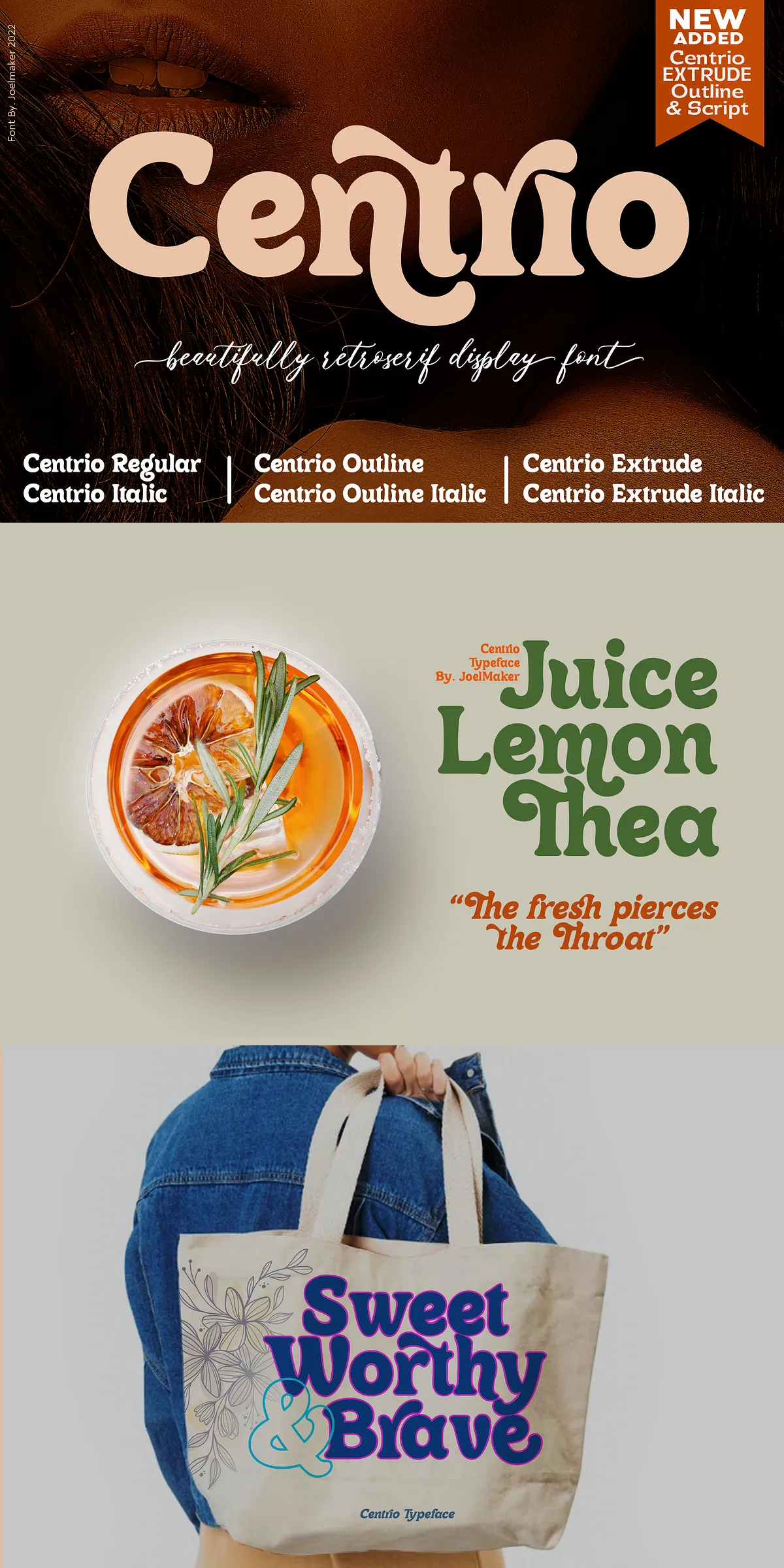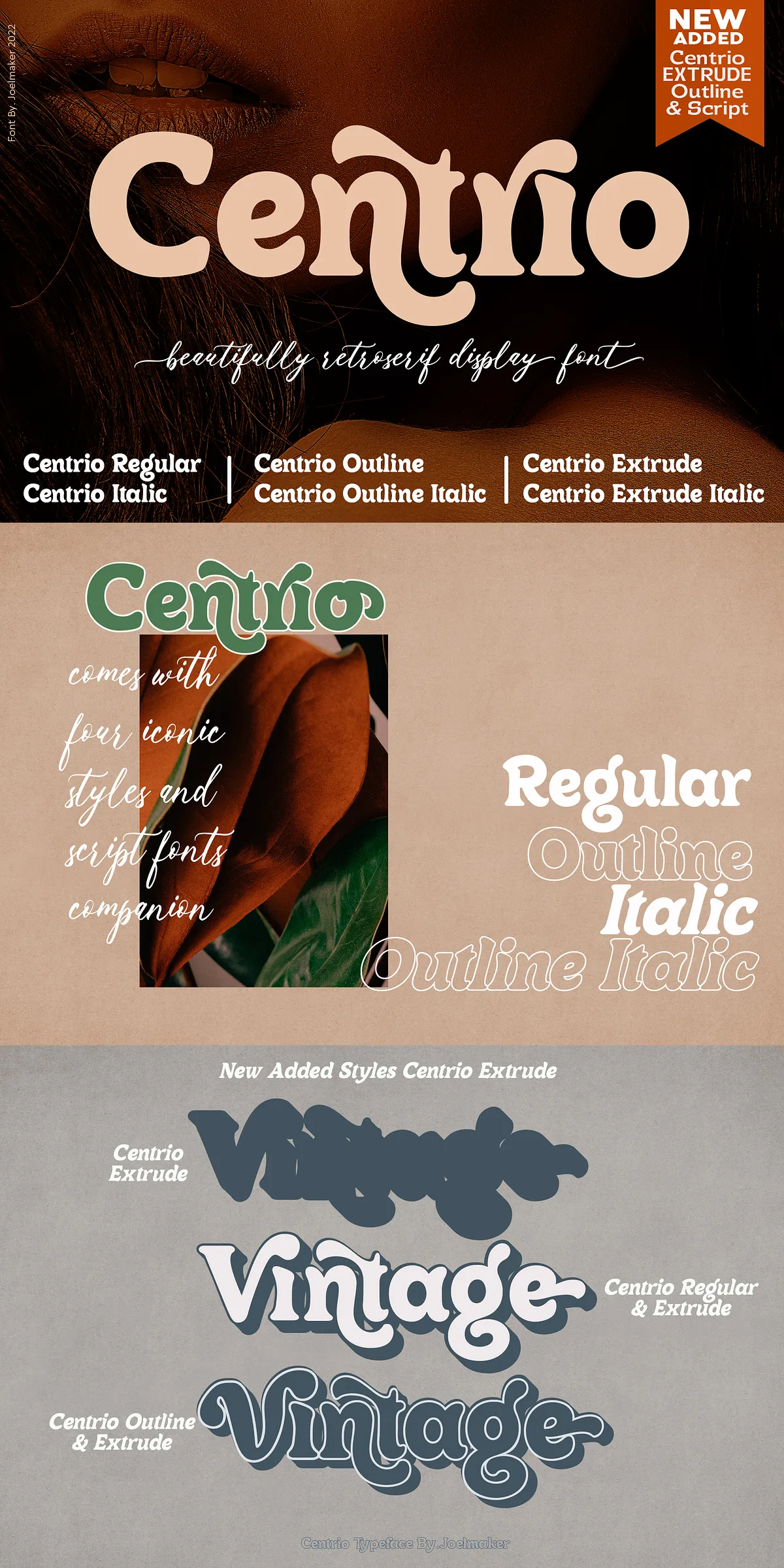
Centrio Script presents a captivating fusion of retro charm and contemporary design, offering a typeface that stands out with its artistic touch and elegant execution. This font family includes three distinctive styles: Centrio Script, Centrio EXTRUDE, and Centrio Outline, each bringing unique character to your creative projects.
Artistic Design Inspired by Vintage Retro and Modern Appeal
The Centrio Typeface draws inspiration from classic retro designs while incorporating modern typographic principles. The result is a font that feels both nostalgic and fresh, crafted with intricate swirly embellishments and sophisticated ligatures. These design details work together to create a typeface that boldly expresses elegance while maintaining a unique artistic personality.
Versatile Uses for a Wide Array of Creative Projects
Centrio Script adapts beautifully to various design needs. It is perfect for magazine titles that demand attention, posters that require bold presence, and logos that need an elegant signature. The font shines in wedding invitations, business cards, book covers, and greeting cards where its stylish flair complements sophisticated themes. Digital designers will find it ideal for Instagram story posts, quotes, and other social media visuals, elevating their content with a distinctive retro-modern look.
A Comprehensive Font Family with Multiple Style Variants
This collection offers three complementary styles to enhance your design toolkit. The base Centrio Script delivers classic calligraphic elegance. Centrio EXTRUDE adds depth and dimensionality, lending bold emphasis that enhances visual hierarchy. Centrio Outline offers a clean, minimalist approach that highlights the font’s unique character while maintaining clarity and readability. Together, these styles provide extensive options for layering and creative expression.
Advanced Typographic Features for Professional Design Workflows
Designed with professional use in mind, Centrio Script incorporates an extensive set of ligatures and special characters. These features are seamlessly accessible in popular design software such as Adobe Photoshop and Illustrator enabling smooth, natural connections between letters and enhancing typographic quality. For users employing basic design tools, all special glyphs remain accessible through character maps or font books, ensuring versatile usability across platforms.
Technical Specifications and Seamless Integration
The Centrio Script font files undergo rigorous professional development, ensuring compatibility with major design applications and smooth implementation in print and digital media. Its balanced letter spacing and proportions maintain legibility at various sizes, whether in large titles or smaller text elements, making it a reliable choice for diverse projects.
Expand Creative Possibilities with Centrio Script Fonts
Imagine the impact of Centrio Script in branding projects where a distinct personality is essential for visual storytelling. Its elegant strokes add sophistication to wedding stationery and restaurant menus, while the retro appeal enriches packaging, posters, and signage. The font’s versatility extends to editorial design, functioning effectively as elegant headlines or stylish pull quotes that capture reader interest.
Why Designers Consistently Choose Centrio Script
Designers favor Centrio Script for its unique blend of modern energy and vintage charm that elevates any creative project. The font’s artistic ligatures, coupled with a flexible variety of styles, empower designers to create visually stunning, memorable works. Whether for commercial branding or personal projects, Centrio Script adds a refined touch, helping communications resonate with clarity and style.
Key Features Summary for Quick Reference
- Combines retro charm with contemporary elegance in a seamless design
- Includes three distinct styles: Script, EXTRUDE, and Outline
- Rich set of ligatures and swirly embellishments enhance artistic expression
- Versatile use cases across print, branding, digital content, and social media
- Fully accessible special characters in professional and basic design software
- Optimized for various sizes, maintaining legibility and impact
Elevate your next design project with the expressive and versatile Centrio Script typeface, a perfect choice for designers seeking a combination of retro aesthetic and modern sophistication.